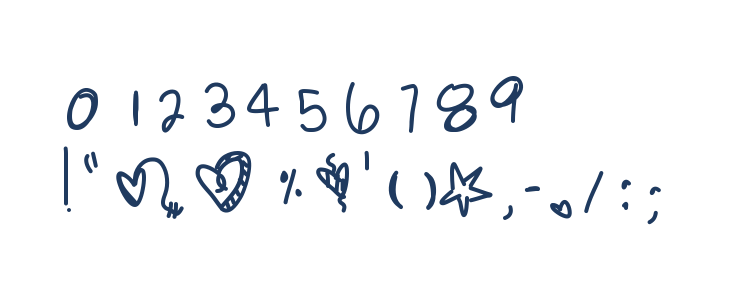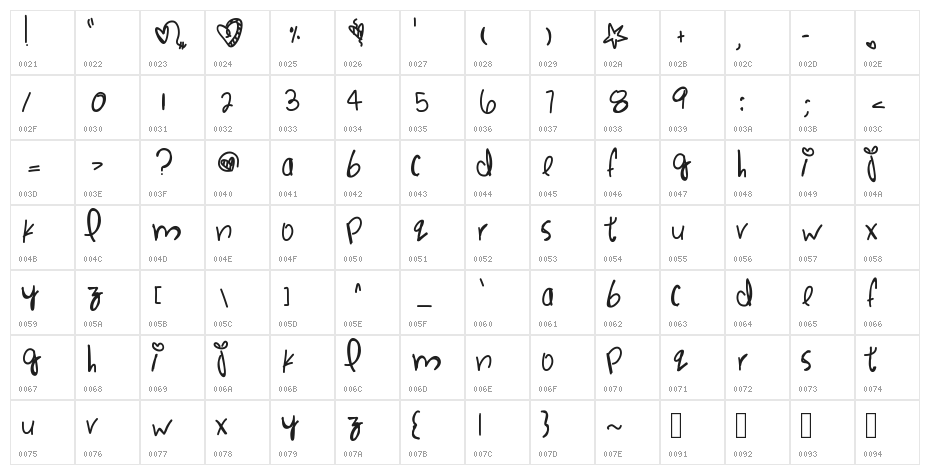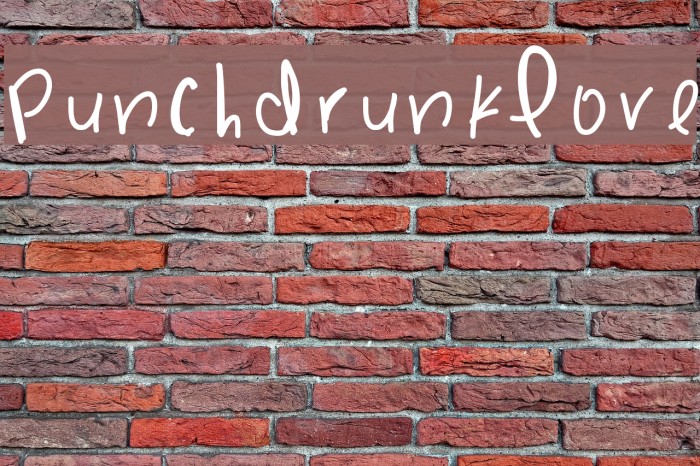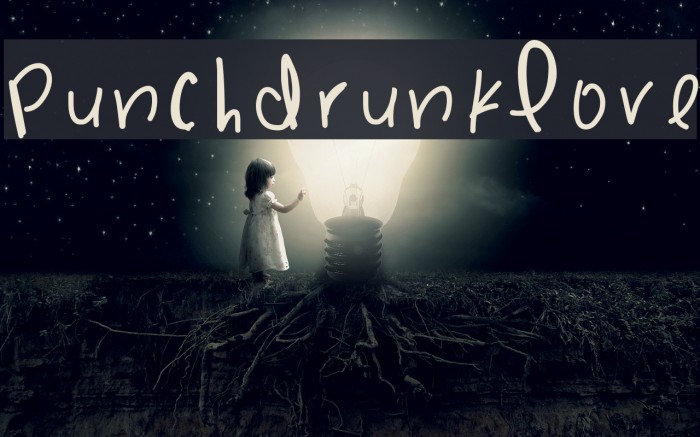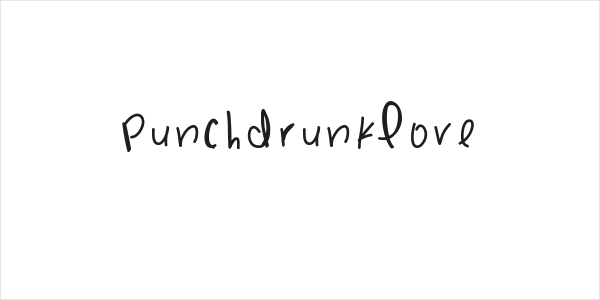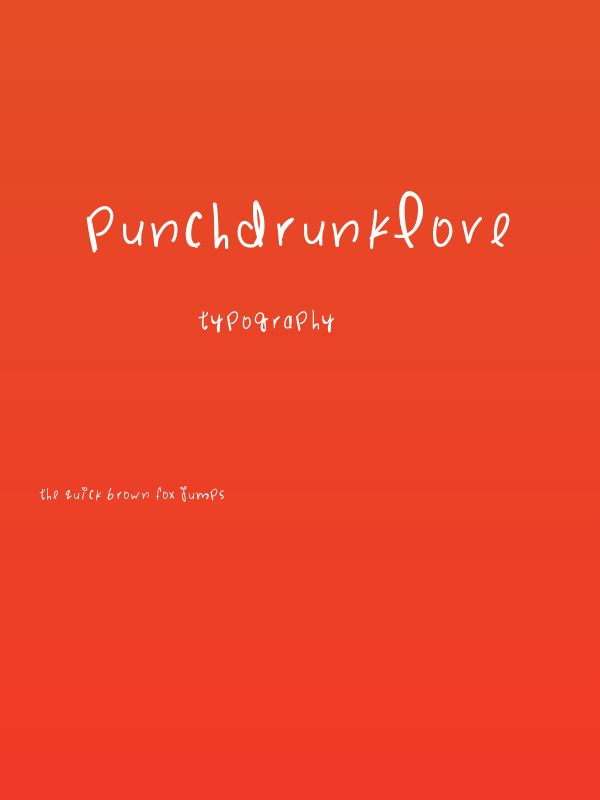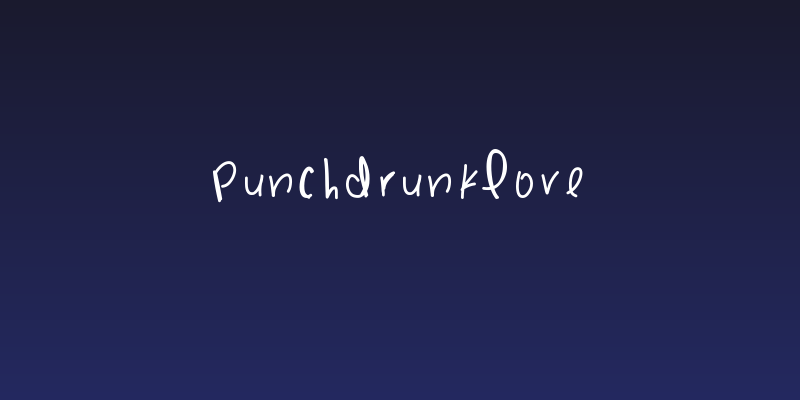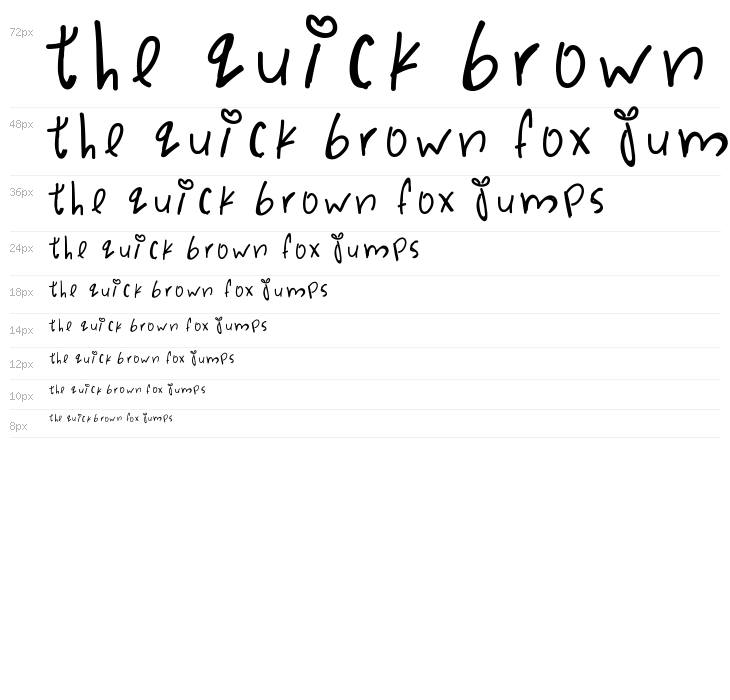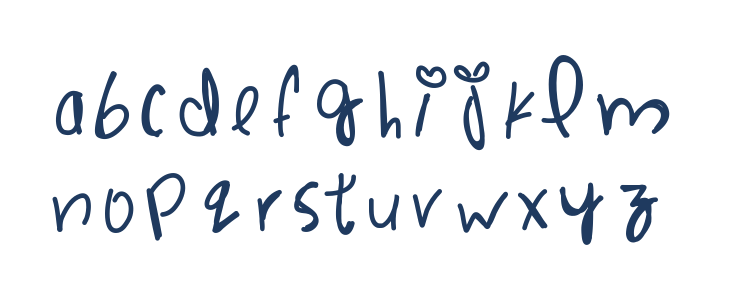
PunchDrunkLove Font
PunchDrunkLove Description
This playful and whimsical font features a handwritten style with a charming, casual appearance. Each character is uniquely crafted with a slightly uneven baseline, adding to its quirky and informal feel. The letters have a consistent stroke width, giving it a cohesive look, while the playful loops and curves add a touch of personality. The font includes a full set of lowercase and uppercase letters, numbers, and a variety of special characters, each maintaining the same lively and spirited design. This font is perfect for projects that require a personal, friendly touch, such as greeting cards, children's books, or playful branding.